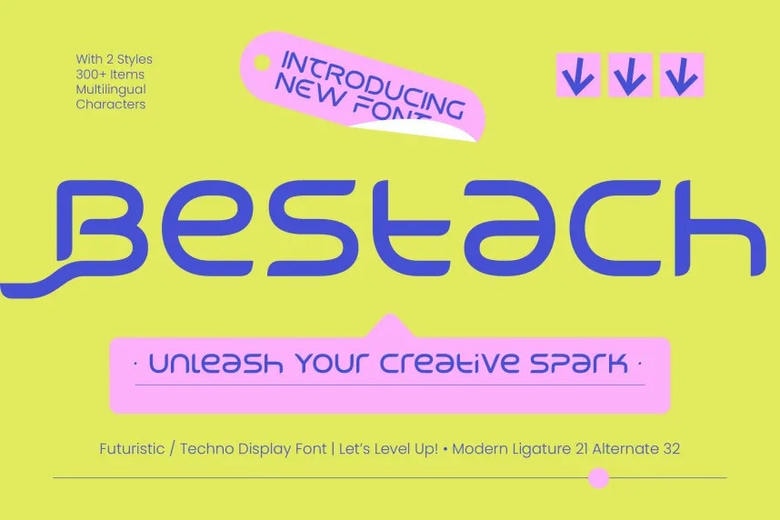
Bestach Font
Bestach is a bold display font designed for today’s digital world. It combines wide geometric shapes with smooth, modern curves. Its low profile and unique letterforms give it a sense of movement and make it a great choice for designers who want a strong, modern look.
Bestach Techno Display Sans Font